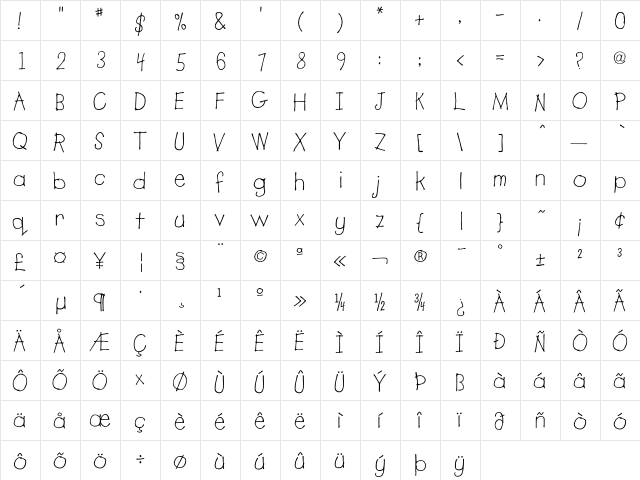
LemonadeICG Regular
Design Context for LemonadeICG Typeface
LemonadeICG is a composed and adaptable typeface that performs quietly and consistently across a wide range of design contexts.